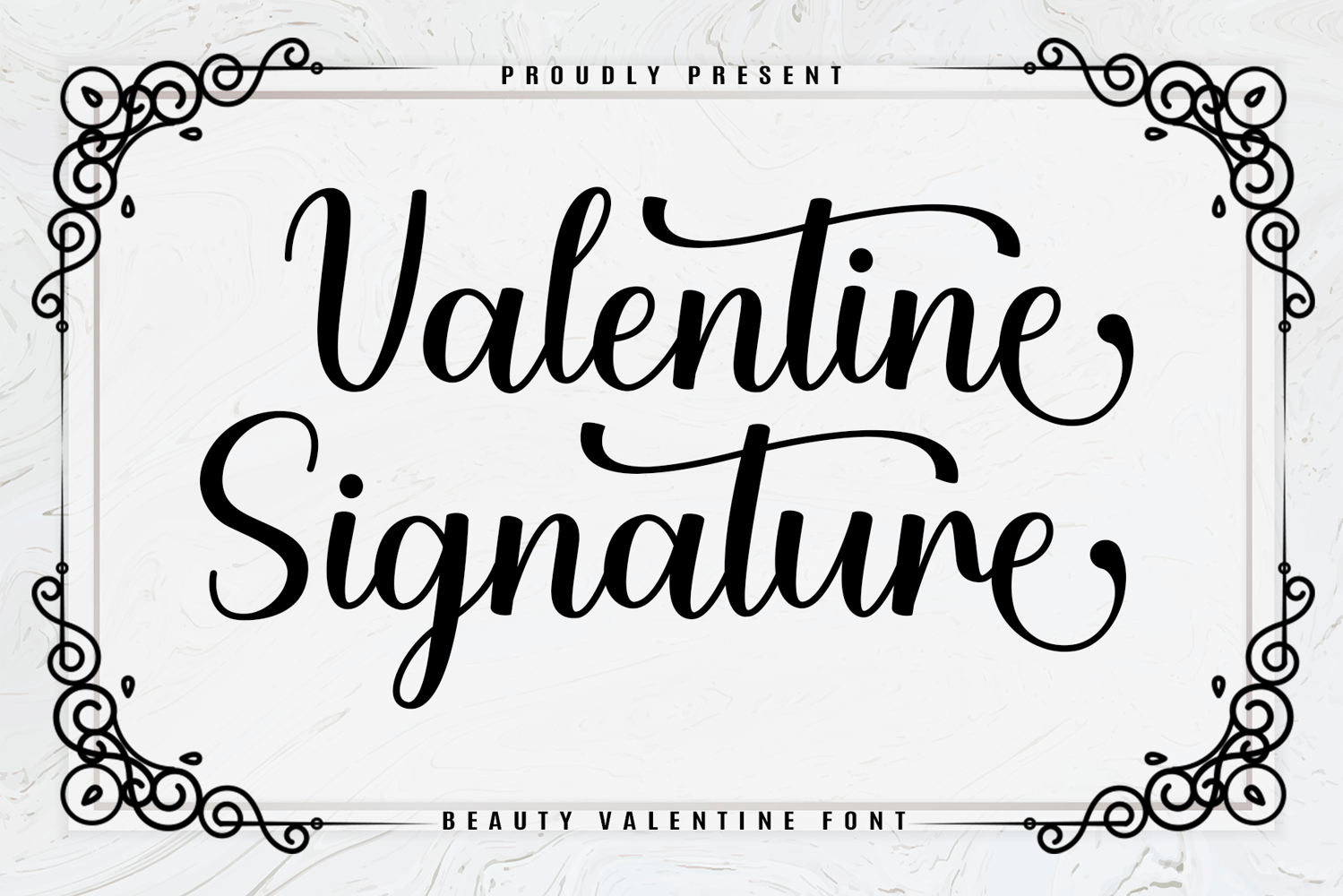
Valentine Signature
The Valentine Signature font is an elegant expression of romance and high-end beauty. This Valentine Signature typeface features a sophisticated calligraphic script with sweeping, graceful flourishes and varying stroke widths that mimic the movement of a master’s pen. It is a premium choice for wedding stationery, luxury beauty branding, and romantic editorial headers.